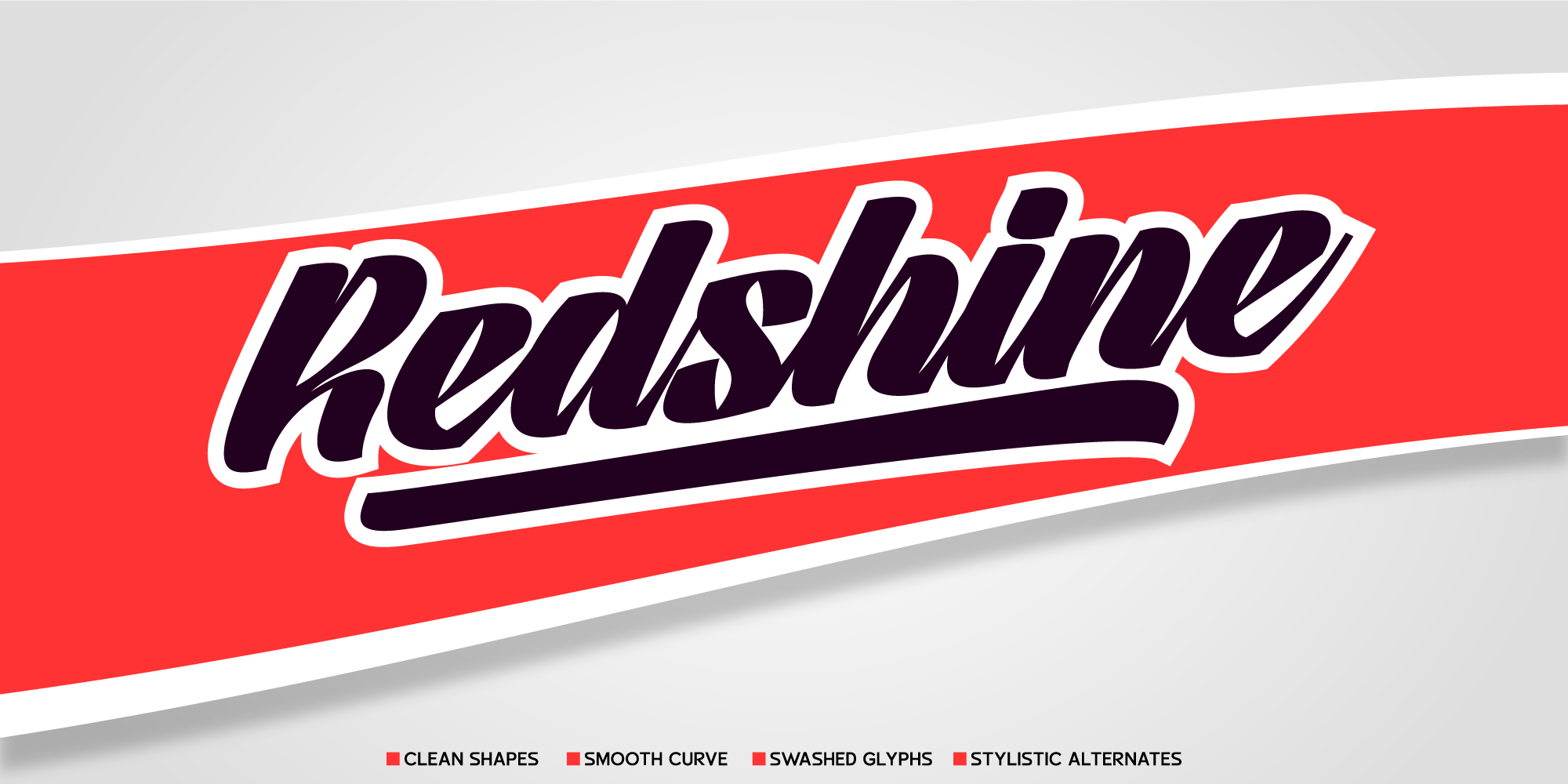
Redshine Font is ideal for luxury automotive branding, high-energy sports promotions, passionate romance novels, dynamic fitness campaigns, vibrant nightclub marketing, bold fashion statements, powerful political campaigns, intense gaming graphics, Valentine's Day promotions, emergency service branding, fiery restaurant logos, and attention-grabbing advertisement designs.
This font is exciting because it radiates the passionate intensity and magnetic allure of brilliant crimson light, featuring luminous letterforms that glow with the same fiery energy and irresistible attraction that defines everything from blazing sunsets to passionate love affairs and high-performance sports cars. The dynamic character design captures both the warm comfort of glowing embers and the explosive power of racing flames, creating typography that commands immediate attention while maintaining an sophisticated elegance that never feels overwhelming or cheap. Each letter burns with the confident charisma and vibrant energy that transforms ordinary text into showstopping statements that refuse to be ignored.
The Redshine Font family includes regular and bold weights with complete character sets featuring vibrant numerals, energetic punctuation marks, and decorative elements inspired by glowing lights, passionate flames, and dynamic energy patterns. Advanced versions may offer additional stylistic variants with enhanced luminous effects, alternate characters that create flowing energy connections, and radiant ornaments that amplify the brilliant red shine aesthetic.
Whether you're developing high-impact brand identities, creating passionate marketing campaigns, or designing dynamic entertainment materials, Redshine Font Free Download provides the magnetic attraction and fiery confidence your project needs to captivate audiences and ignite immediate emotional responses. This typeface transforms ordinary text into radiant beacons that cut through visual noise with passionate intensity and sophisticated style. The font's vibrant character makes it perfect for brands that need to project energy, passion, and premium quality. Dynamic marketers and passionate designers will love how this font brings authentic red-hot appeal to their work with its genuinely luminous and magnetically attractive character that shines brighter than the competition.